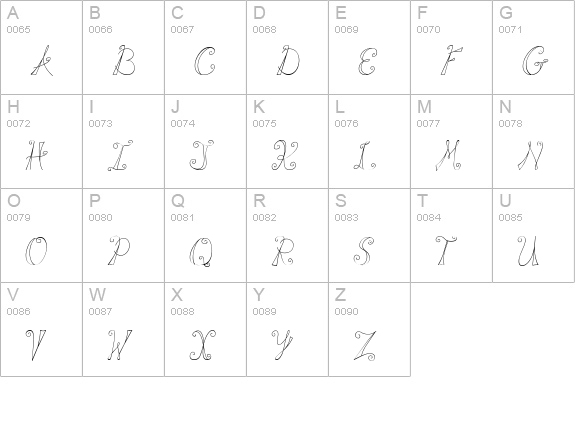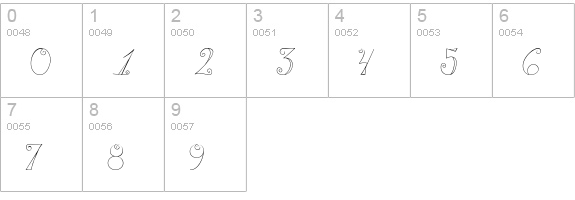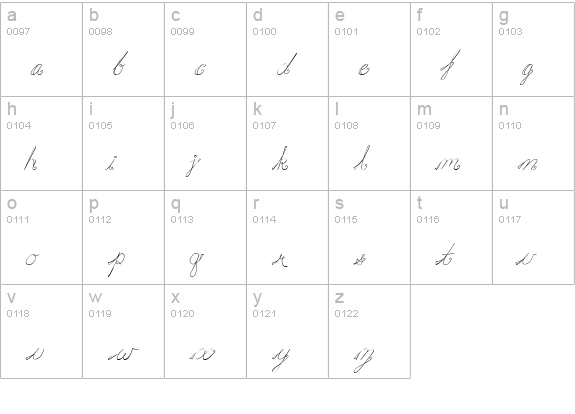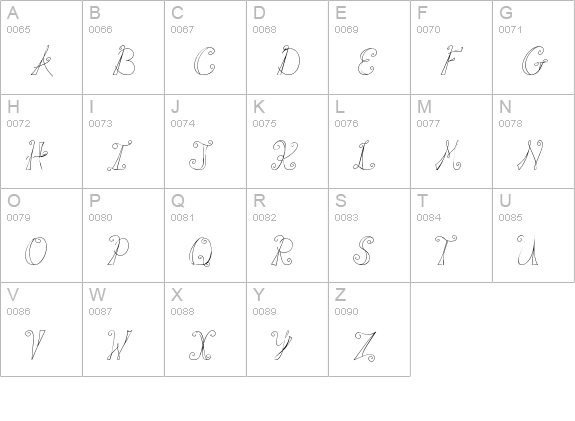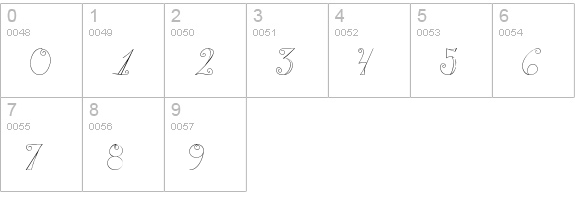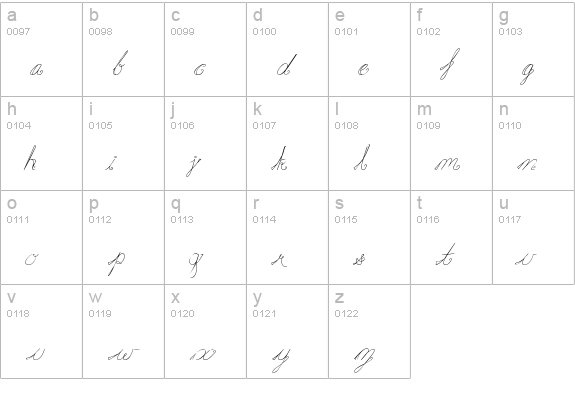
CK Day Dream Font Details
CK Day Dream font is a whimsical and playful typeface that will add a touch of dreamy charm to your projects. With its flowing lines and soft curves, this font exudes a sense of creativity and imagination. Whether you're designing invitations, posters, or branding materials, CK Day Dream is the perfect choice to bring a sense of light-heartedness to your work. And the best part? CK Day Dream font is completely free to download at FontsMarket.com! So go ahead and add a touch of magic to your designs with this delightful font. Let your imagination run wild with CK Day Dream!